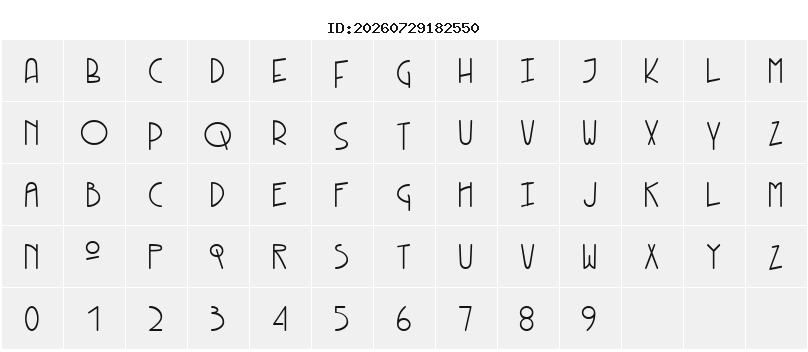
Kneebls Preview
• Font Name: Kneebls
• Font Style: Plain
• Full Font Name: Kneebls Plain
About Kneebls.ttf
Kneebls.ttf is a modern, elegant sans-serif font designed for ultimate readability and visual harmony. Perfect for branding, headlines, web design, and print materials.